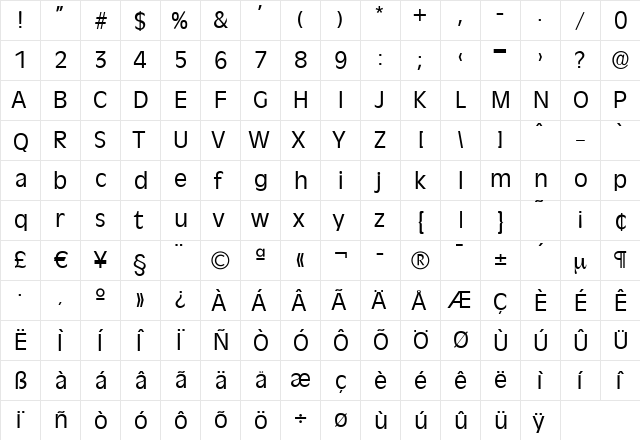
ArthurBecker Regular
Design Context for ArthurBecker Typeface
ArthurBecker takes a measured approach to typography — its balanced proportions and neutral character make it a reliable workhorse for both digital and print work.